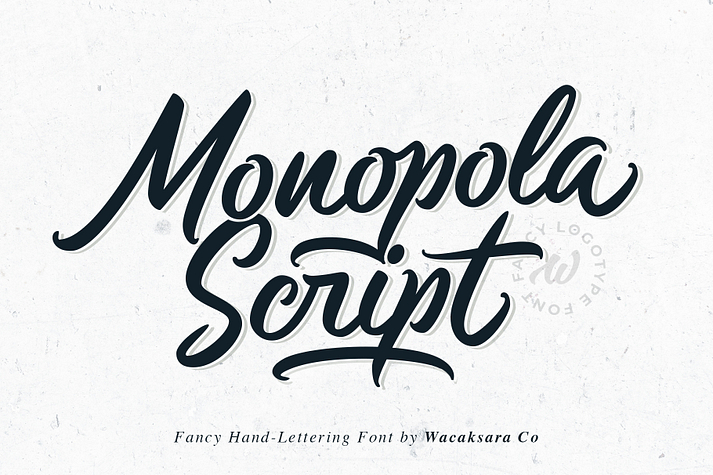
Monopola Script
Monopola Script is a font family published by Wacaksara Co.
Monopola is a casual script font inspired by pop cultures and urban fashion. This font is great for your next creative project such as Logotype, printed quotes, invitations, cards, product packaging, headers, Letterhead, Poster, Apparel Design, Label, and etc.
Monopola comes with uppercase, lowercase, numerals, punctuations and so many variations on each character include OpenType alternates, and common ligatures to let you customize your designs.